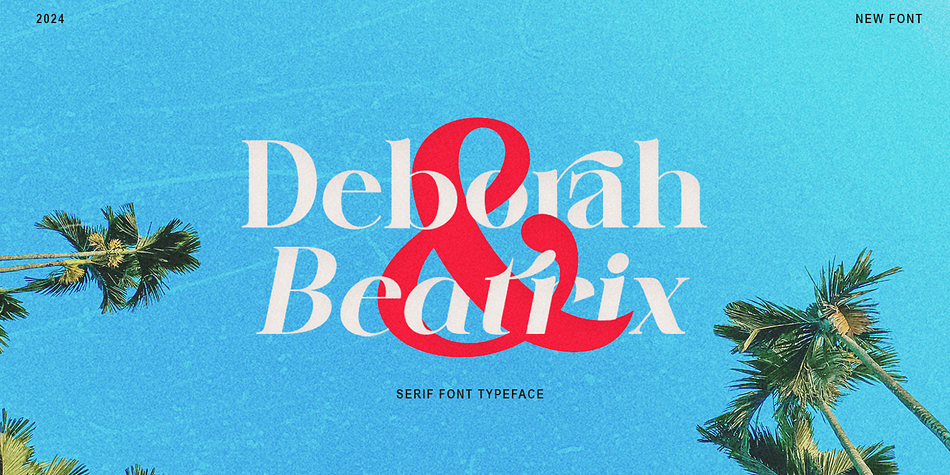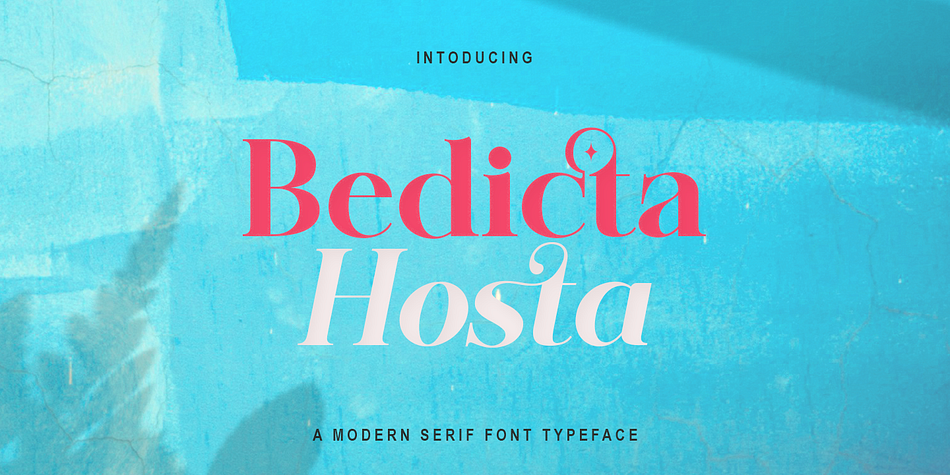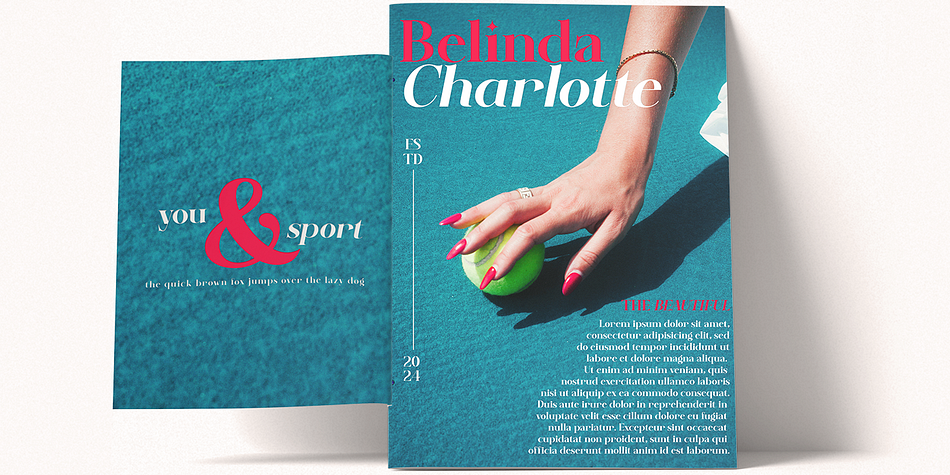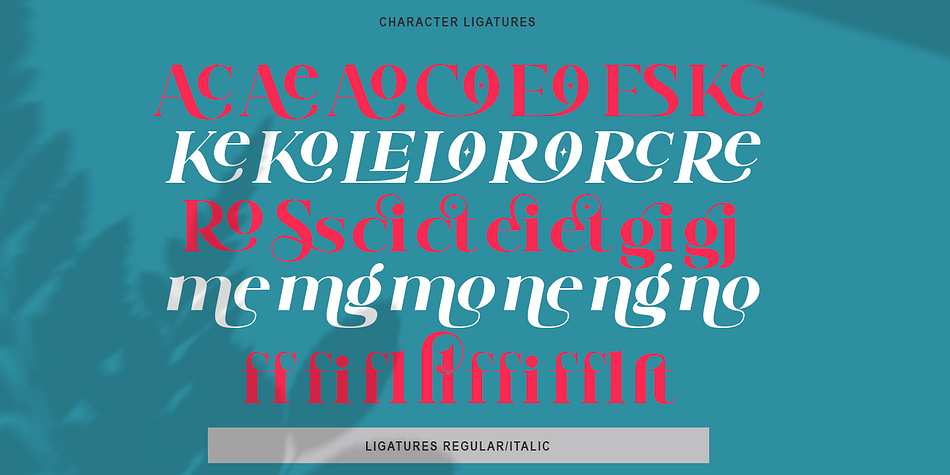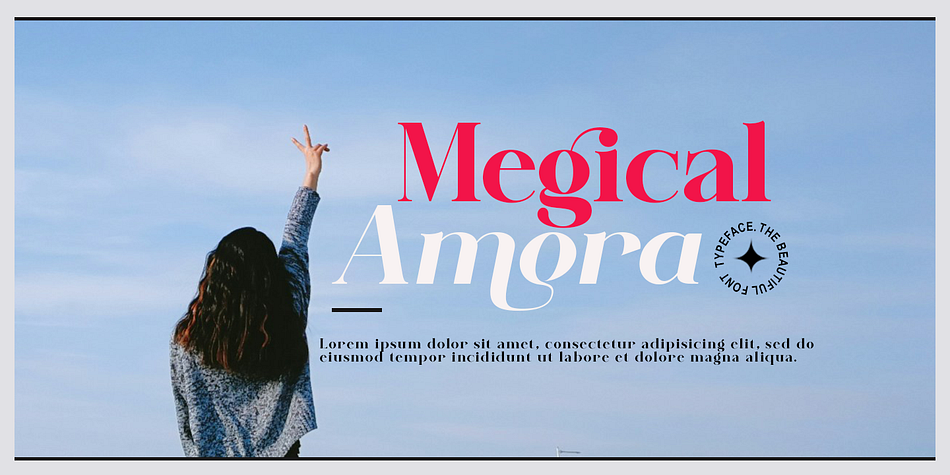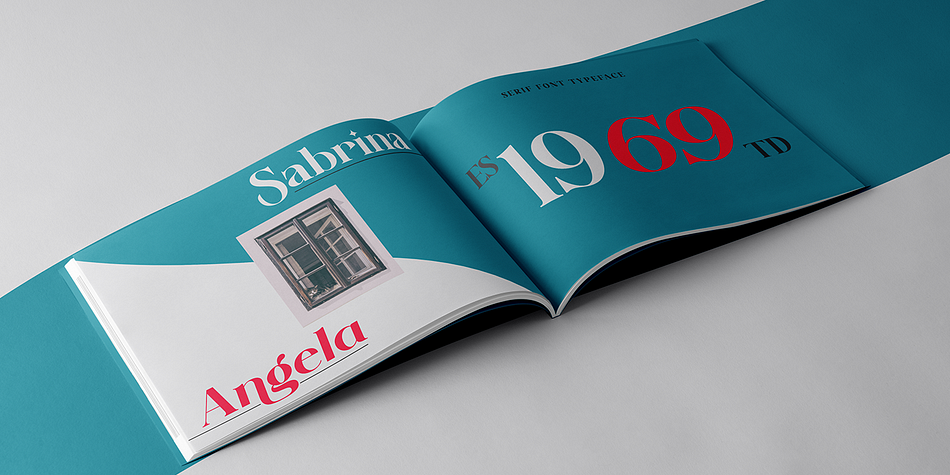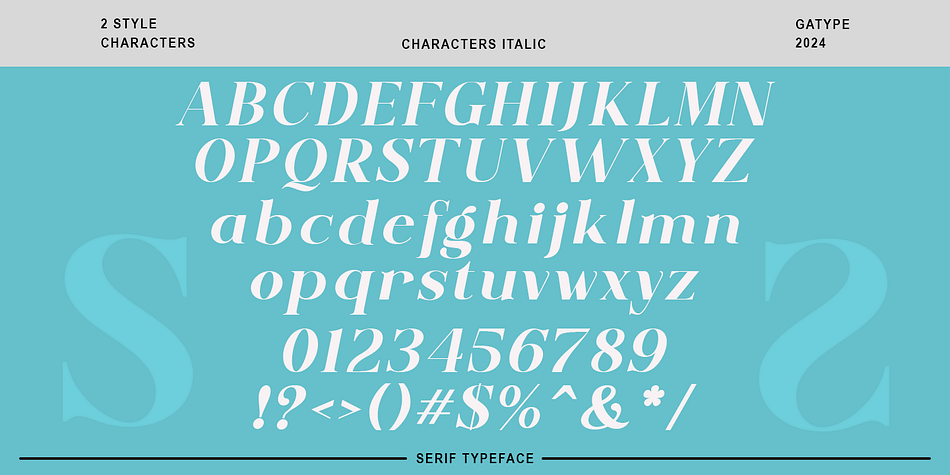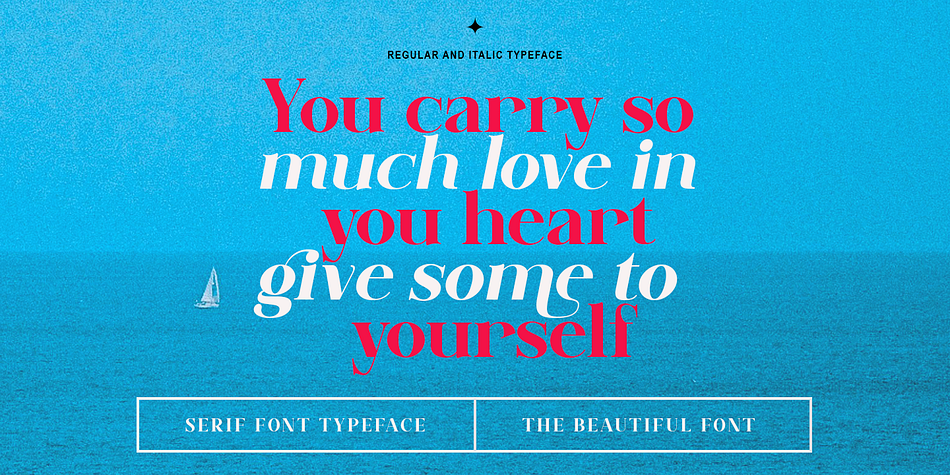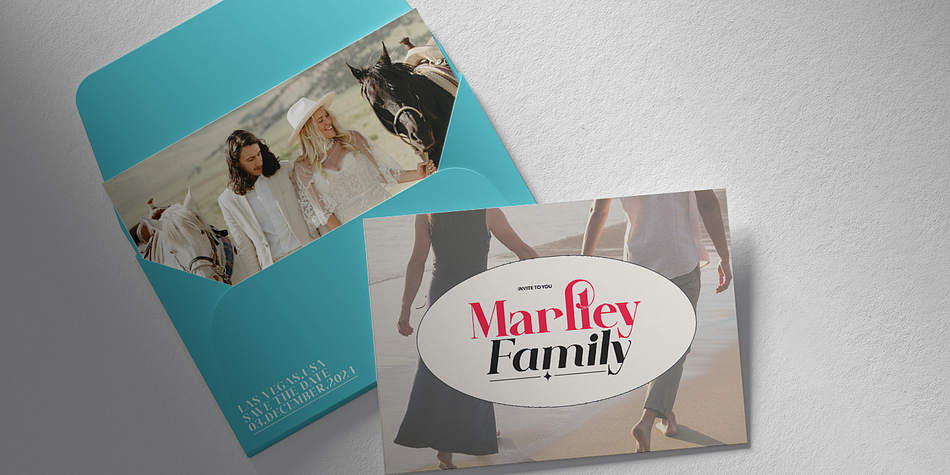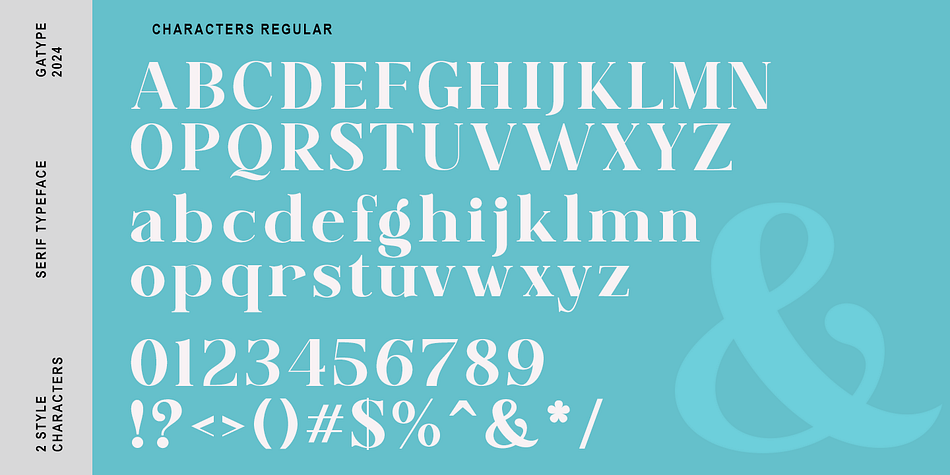
Bedicta Hosta
Bedicta Hosta is a serif font family. This typeface has two styles and was published by Gatype.
Bedicta Hosta is a serif font that stands out with its classic and elegant style. This font features decorative elements on the edges of the letters, creating a professional and luxurious impression. Each letter is designed with fine details and perfect proportions, making it ideal for projects such as logos, magazine typography, or formal invitations. The serif characteristics give the font a classy, traditional look while remaining relevant in modern design.